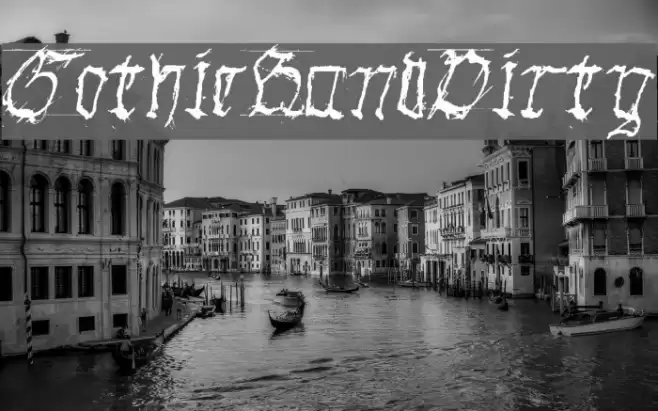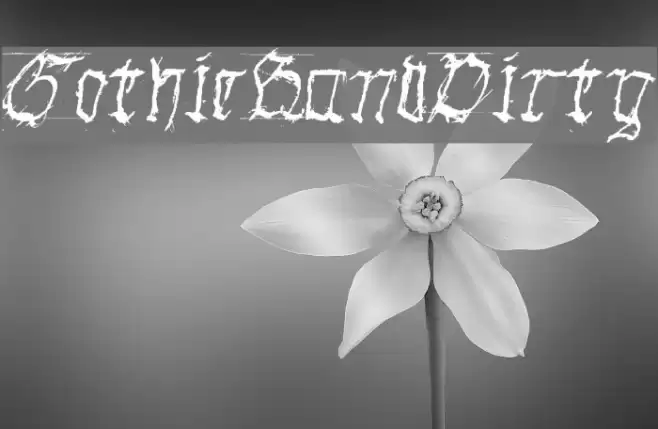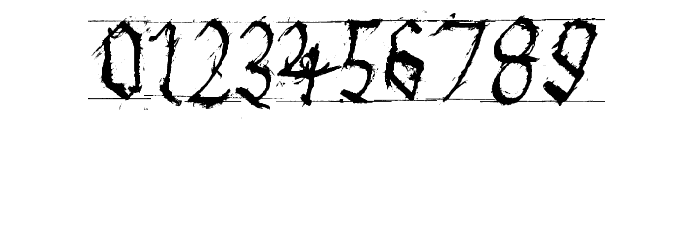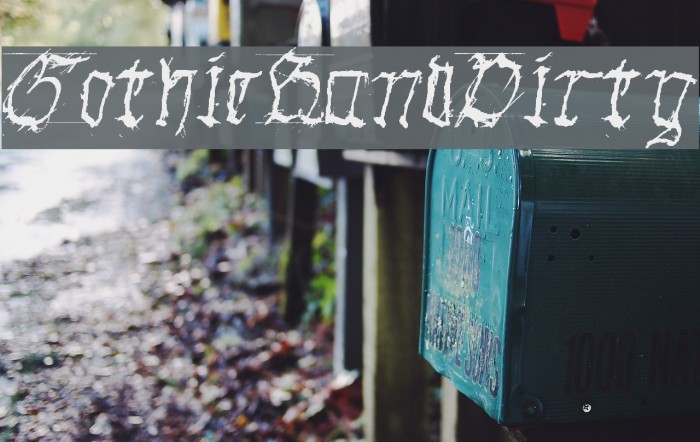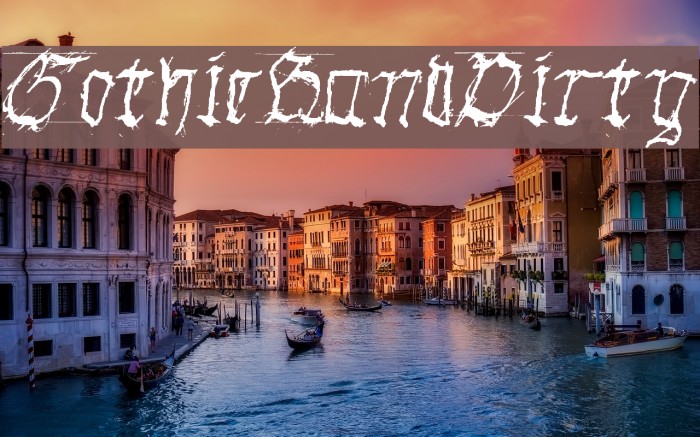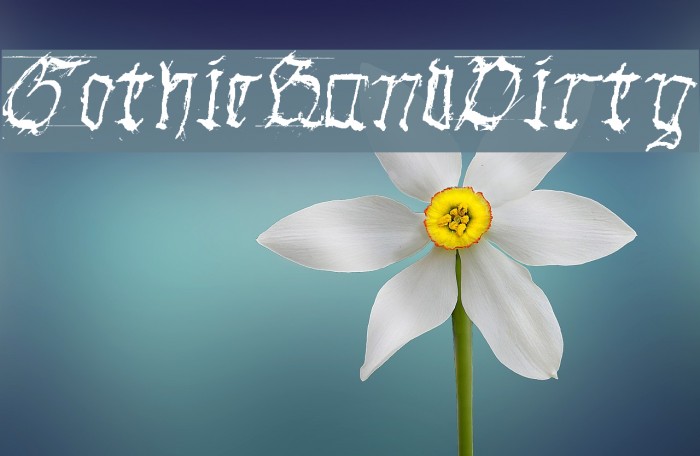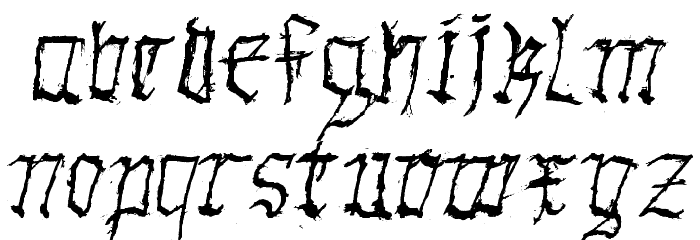
GothicHandDirty Font
GothicHandDirty Description
This font features a distinctive Gothic style with a rough, textured appearance that gives it a 'dirty' or distressed look. The characters are sharp and angular, reminiscent of traditional blackletter scripts, yet they have an irregular, hand-drawn quality that adds a unique, edgy flair. The uppercase and lowercase letters maintain a consistent style, with exaggerated serifs and strokes that vary in thickness, creating a dynamic visual contrast. The numerals and special characters follow the same aesthetic, ensuring a cohesive look across all glyphs. This font's gritty, raw texture makes it stand out, perfect for projects that require a bold, unconventional typeface.
A Gothic-style font with a rough, distressed appearance and dynamic contrast from Uncategorized fonts.
- Proposed Projects: Ideal for album covers, posters, branding for edgy or alternative products, and any design needing a bold, distinctive typeface.